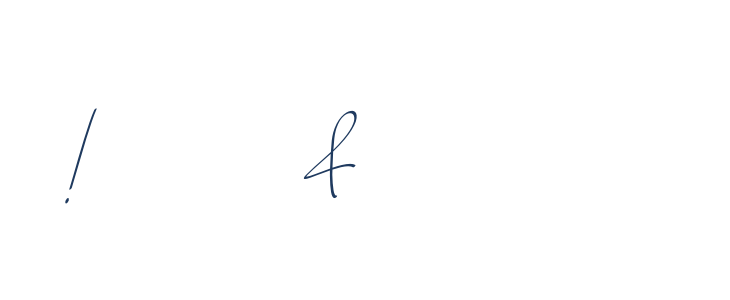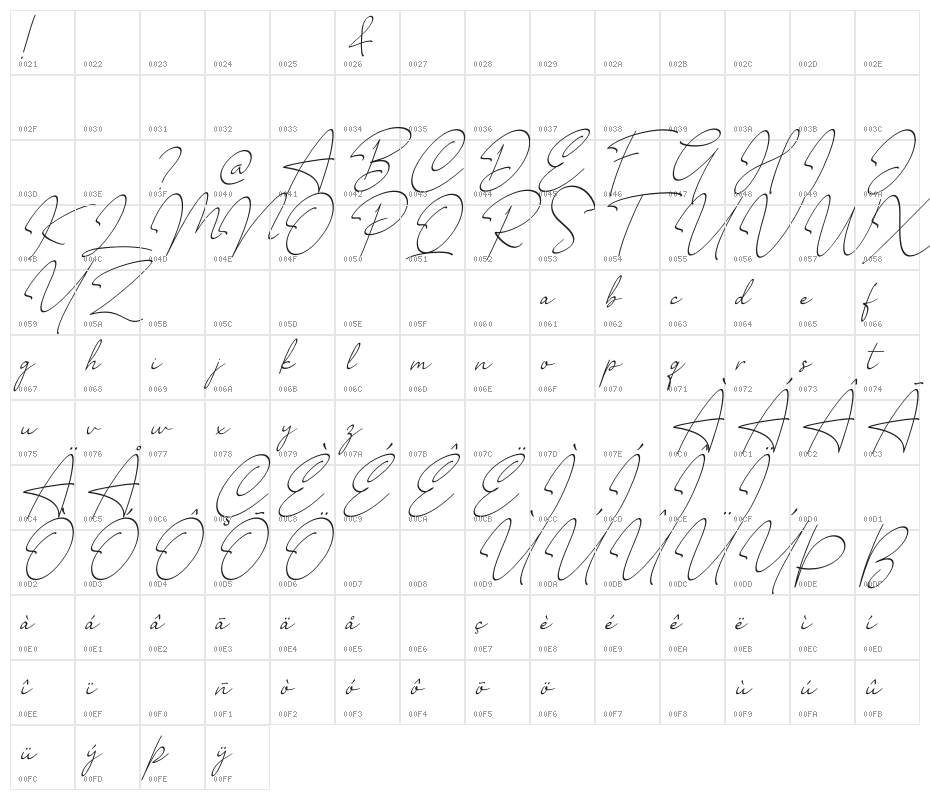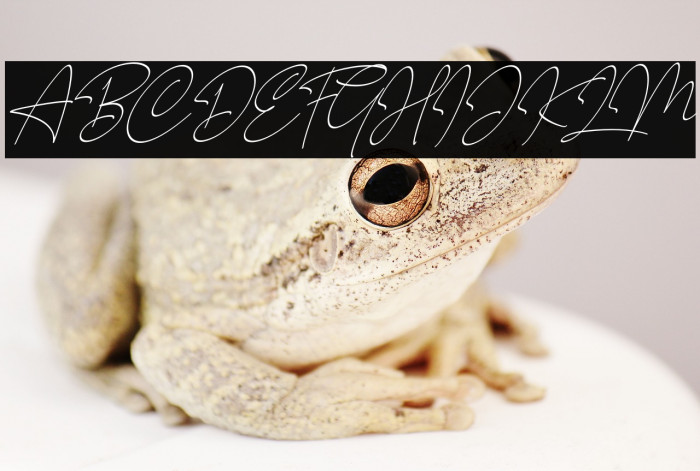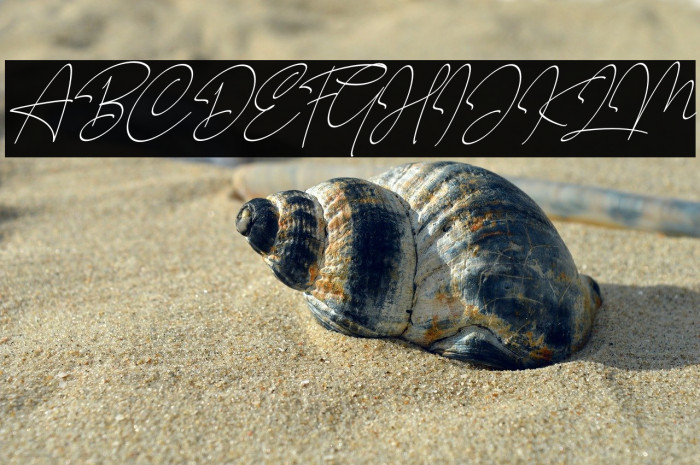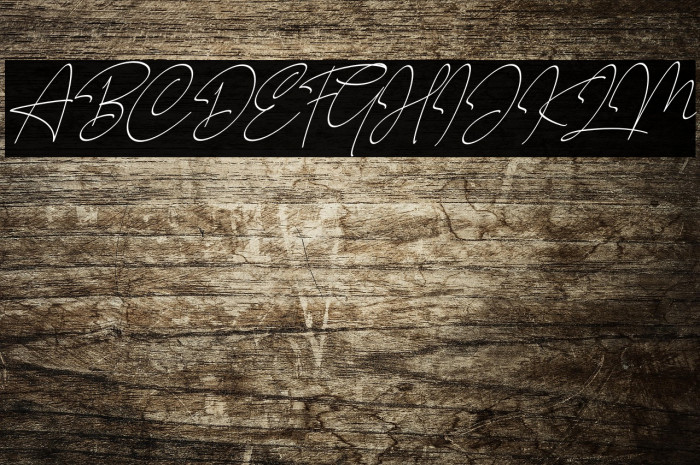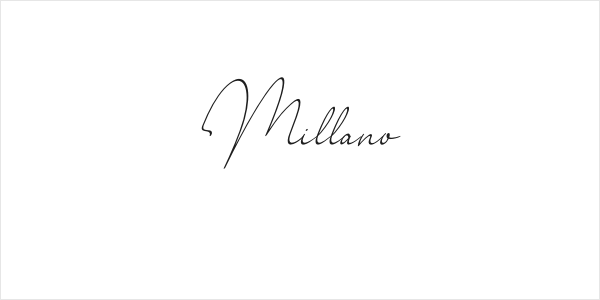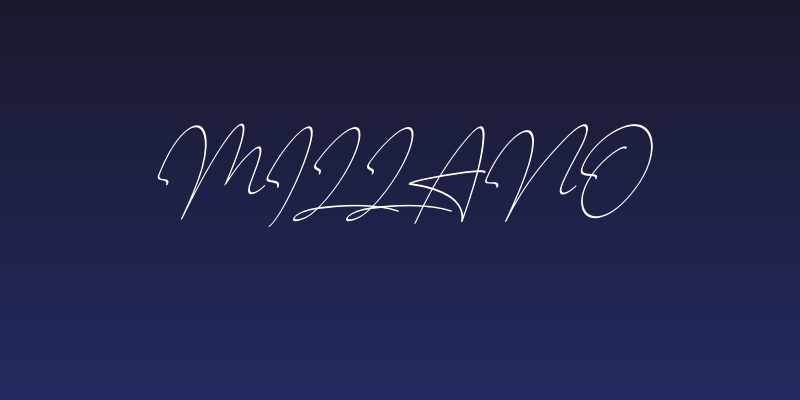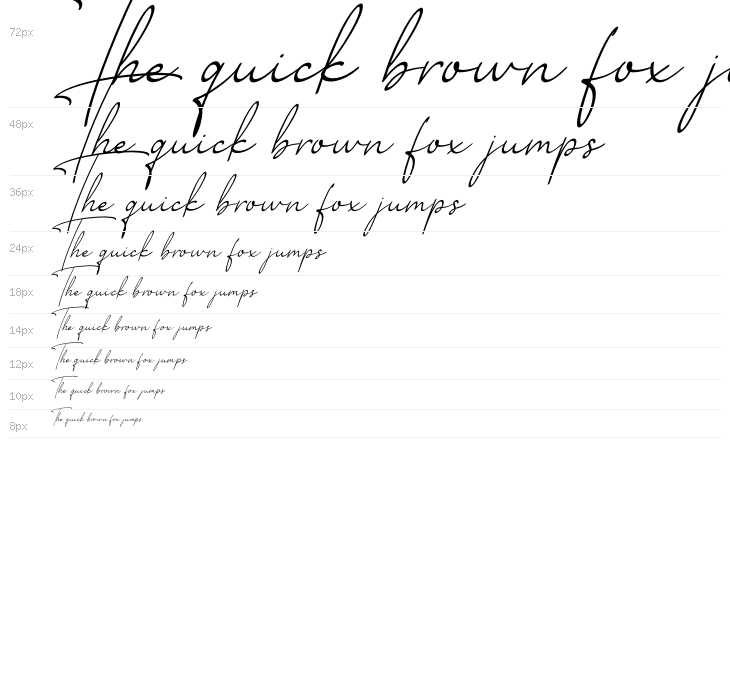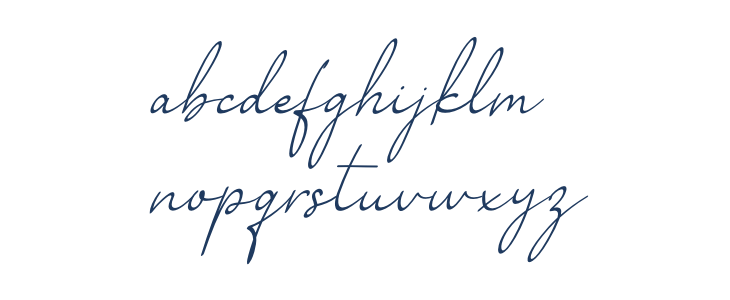
Millano Font
Millano Description
This elegant script font features a flowing, cursive style with smooth, continuous strokes that mimic the fluidity of handwriting. The uppercase letters are tall and graceful, with sweeping ascenders and descenders that add a touch of sophistication. The lowercase letters maintain a consistent slant, enhancing the overall harmony of the design. The numerals and special characters are crafted with the same attention to detail, ensuring a cohesive look throughout. This font is perfect for projects that require a personal, handwritten touch, such as invitations, greeting cards, and branding materials.
| Overall Style | Elegant, Handwritten |
| Use Case | Logos, Invitations, Personal stationery |
| Proposed Projects | Ideal for wedding invitations, personal stationery, branding, and elegant signage. |